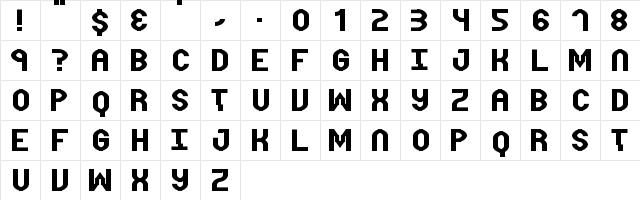
Distortion Regular
| Designer | GeronimoFonts |
Design Context for Distortion Typeface
Distortion offers clean, dependable letterforms without strong stylistic allegiance, making it a practical choice for designers who need flexibility.
Pro Tip: Use Distortion in both headline and body roles to test its range before committing to a single application.